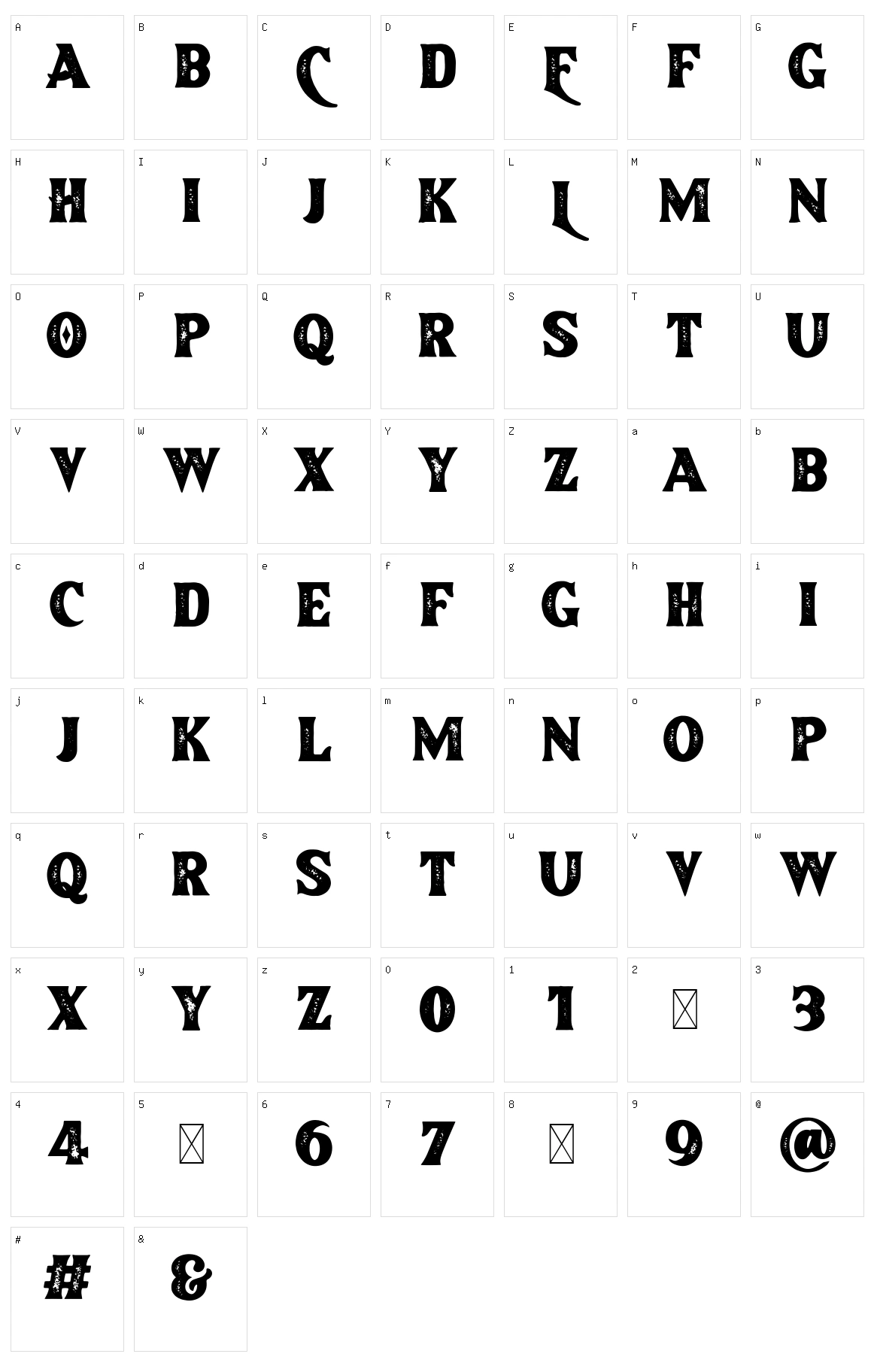
The free font Brotherland is carefully designed by Dikas Studio, showcasing a thoughtful balance of creativity and usability and falls under the Western font style. When you download the ZIP file, it contains only 95.88 KB of font files, making it lightweight and quick to download. Please review the license details below to understand permitted usage and distribution rights. If license information is not available, we recommend using this font for personal projects only or contacting the author directly for commercial usage permissions.